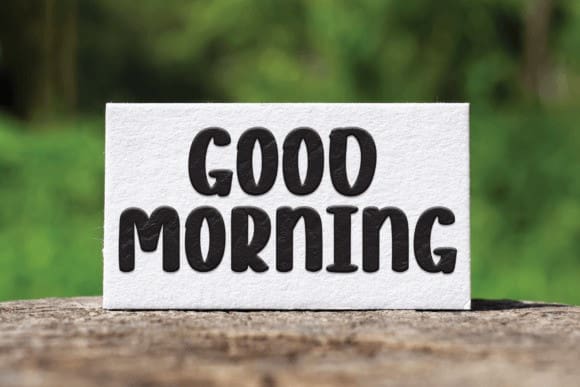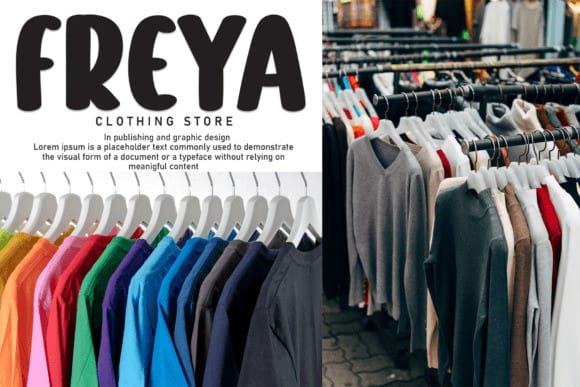
Home Rabbit Font
Home Rabbit Font is a sweet and friendly handwritten font. Fresh and casual, this font is ideal for writing wedding invitations, cards, or any other design that might need a lovely touch.